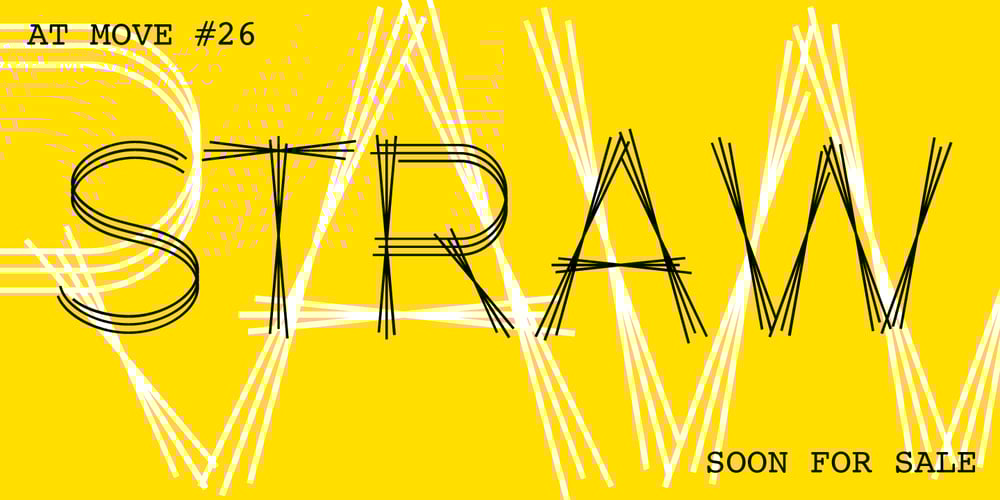
AT Move Straw Font Family was designed by André Toet, Jasper Nijssen and published by André Toet Design. AT Move Straw contains 1 styles and family package options. STRAW The inspiration for this capital alphabet came from those beautiful haystacks you see in summer and the old fashioned Mikado game! We wanted to create a light, fragile and airy typeface with an optical effect. And here it is … it’s just STRAW ! Concept/Art Direction/Design: André Toet © 2017